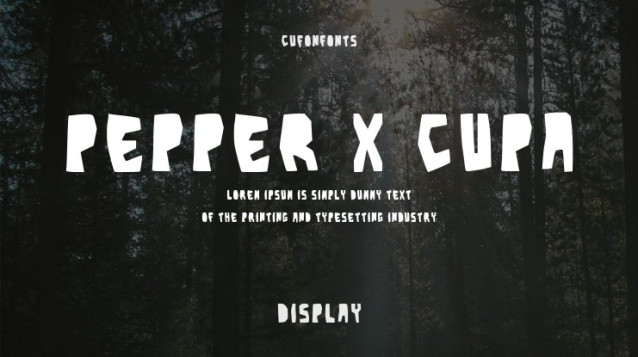
Pepper X Cupa Font is a chunky, comic, and cartoon display font. With its neat and joyful personality, this font will enhance any project you wish to create!
Pepper X Cupa Font